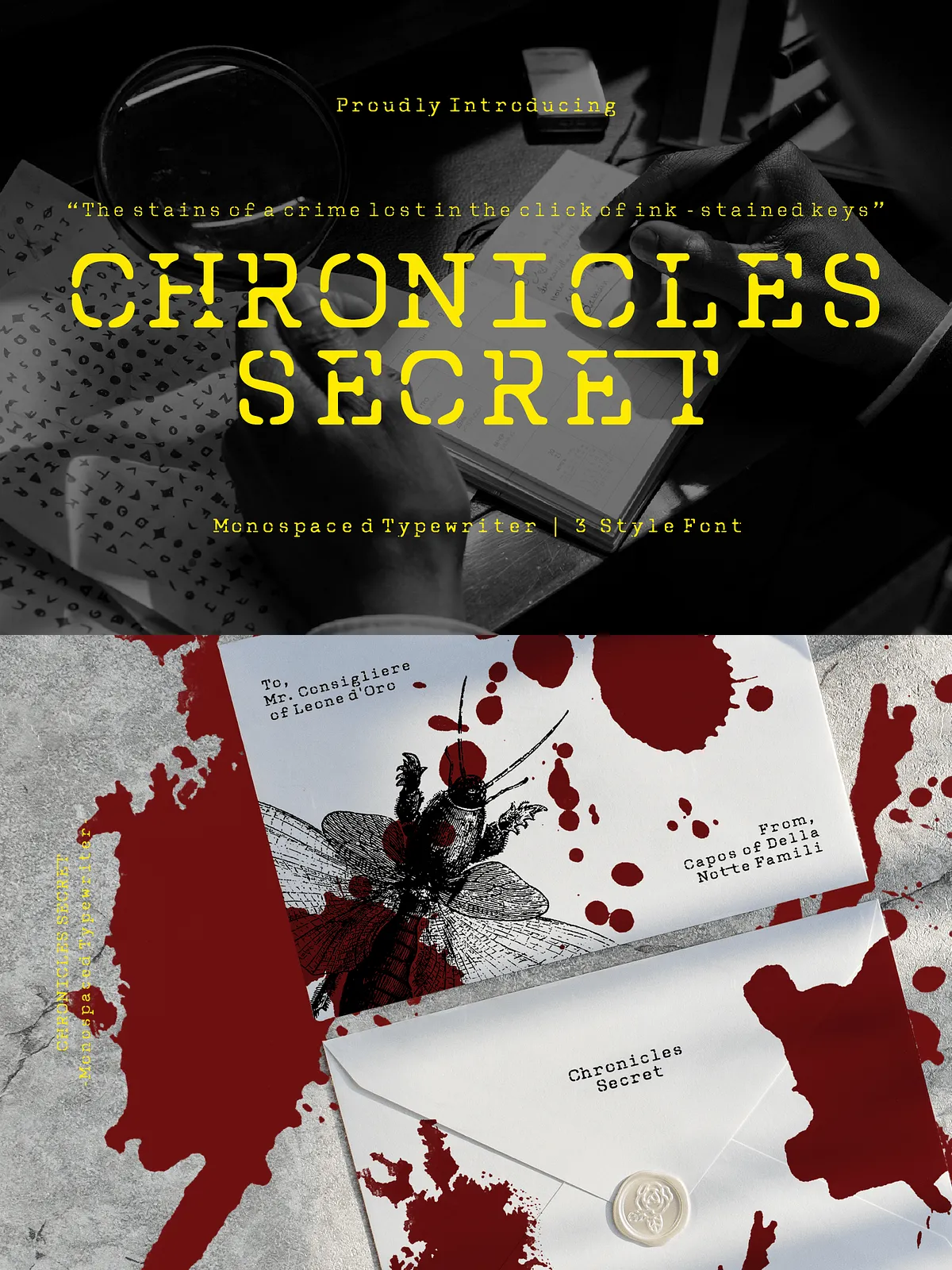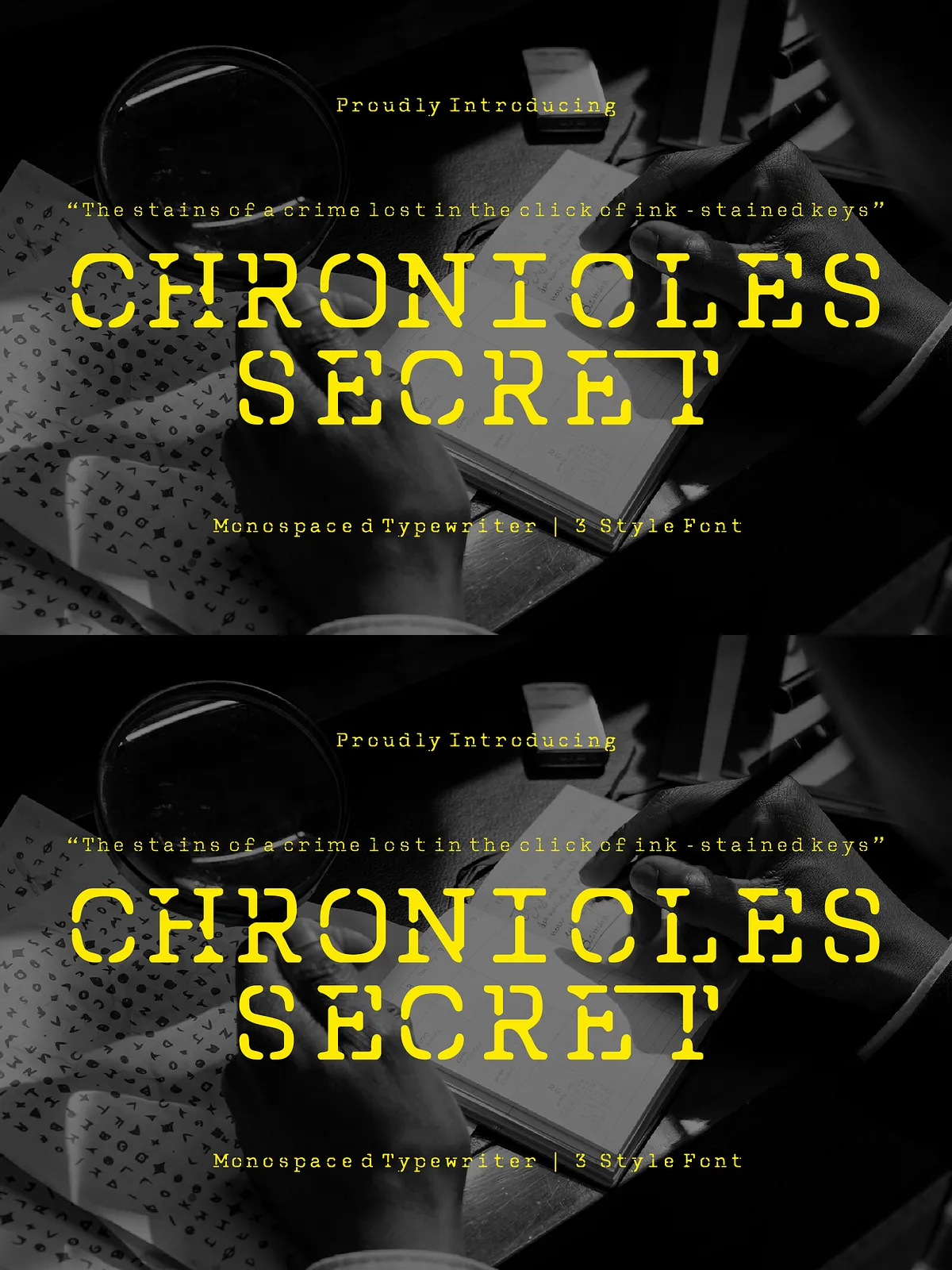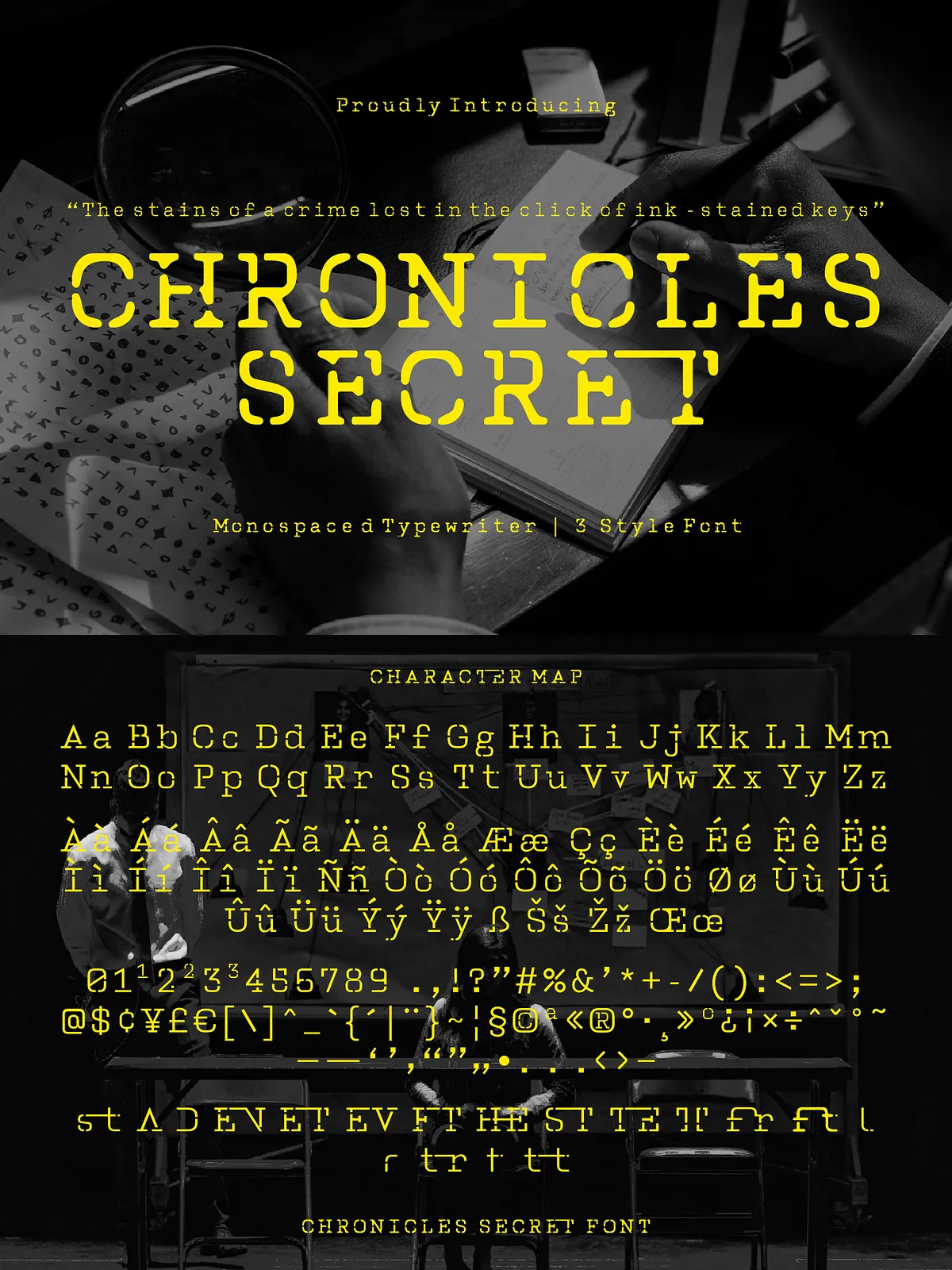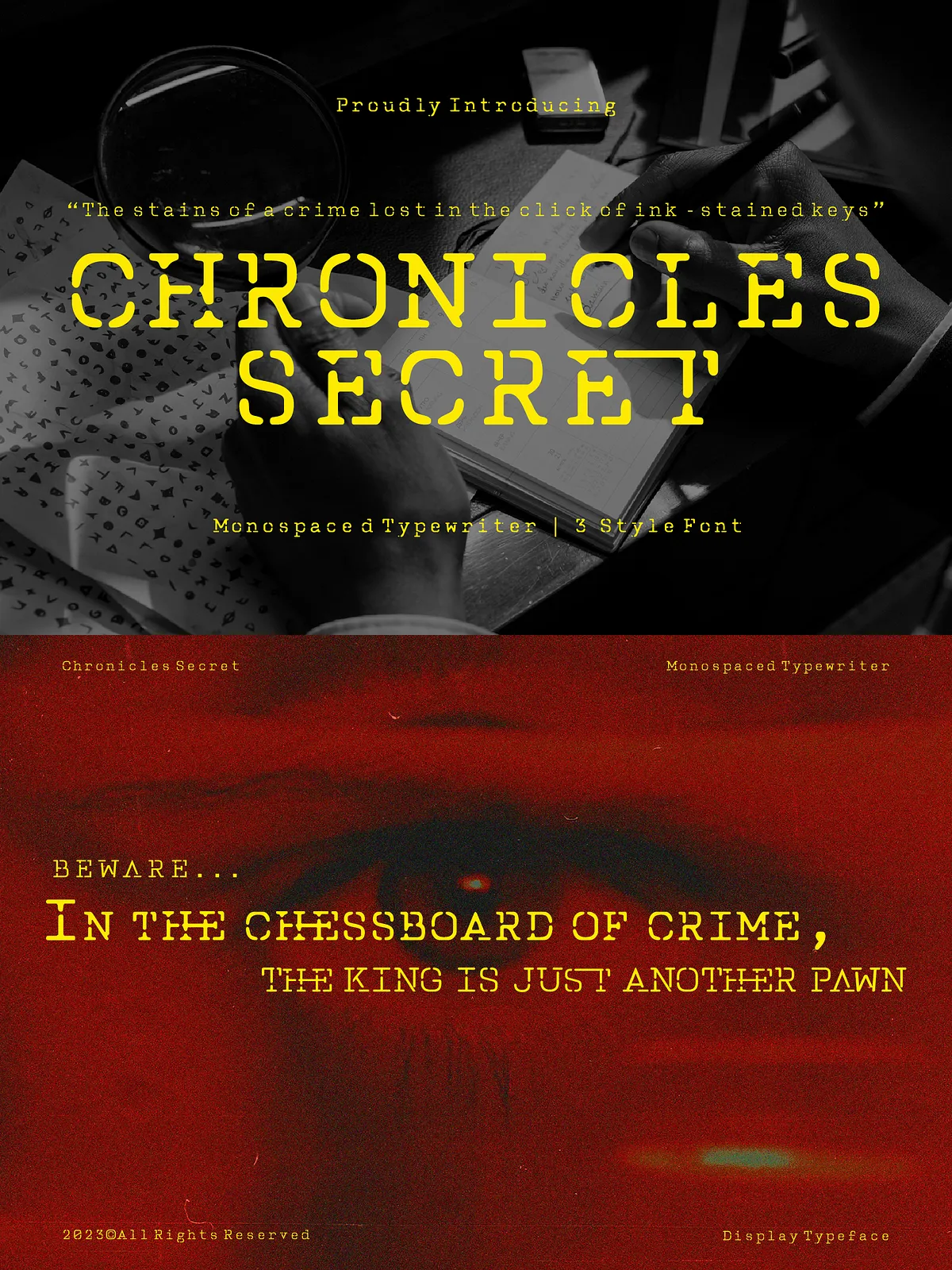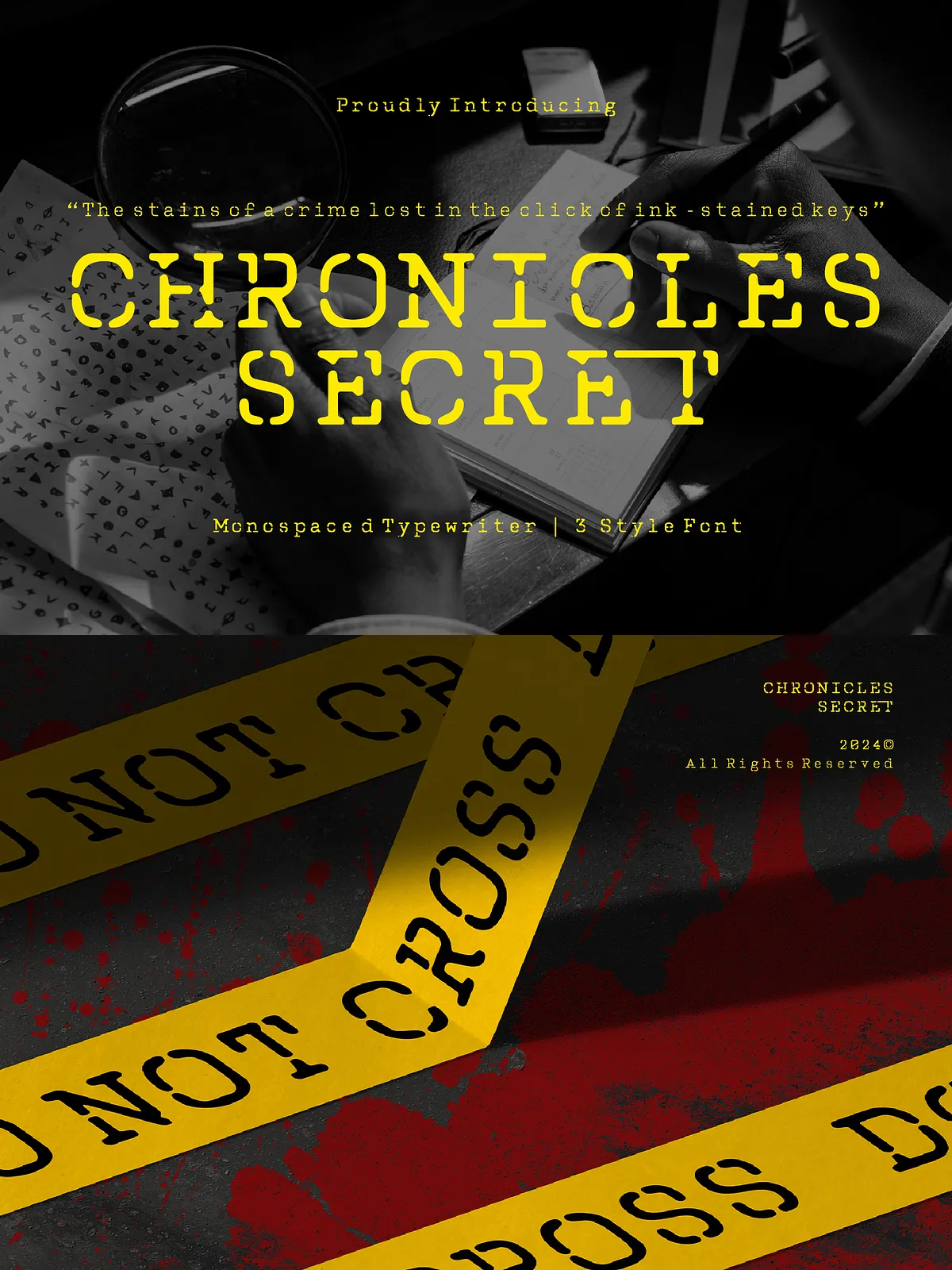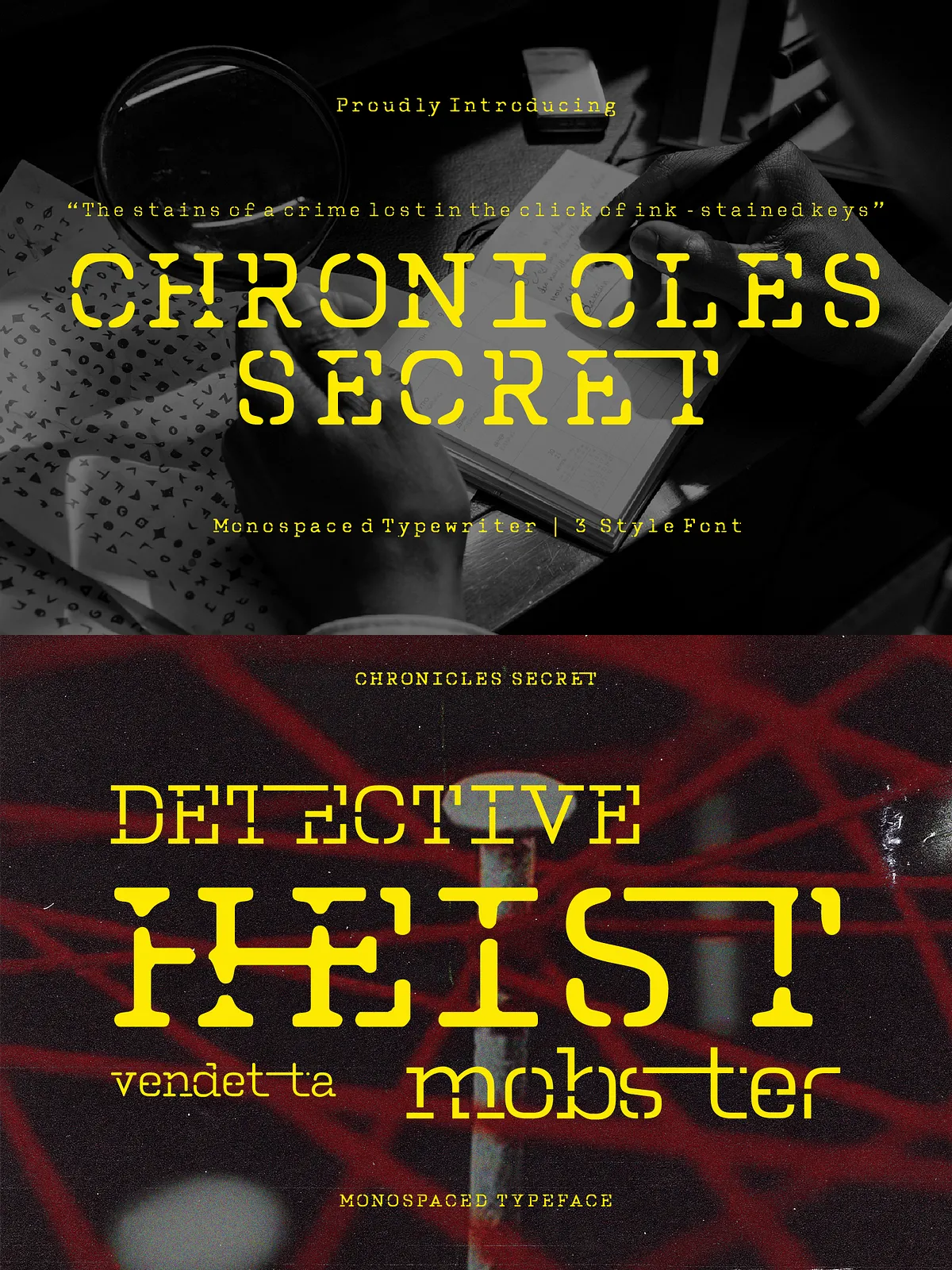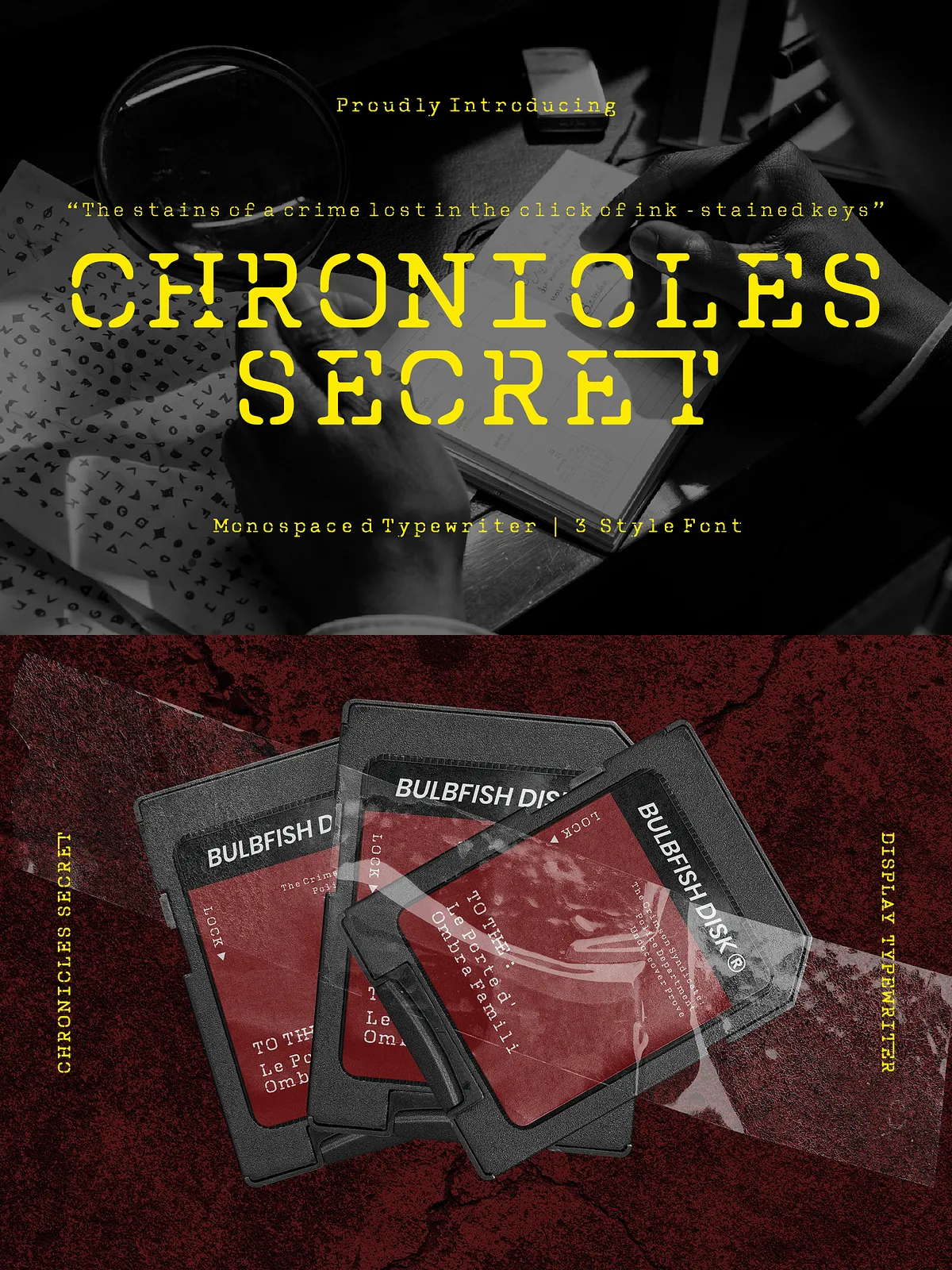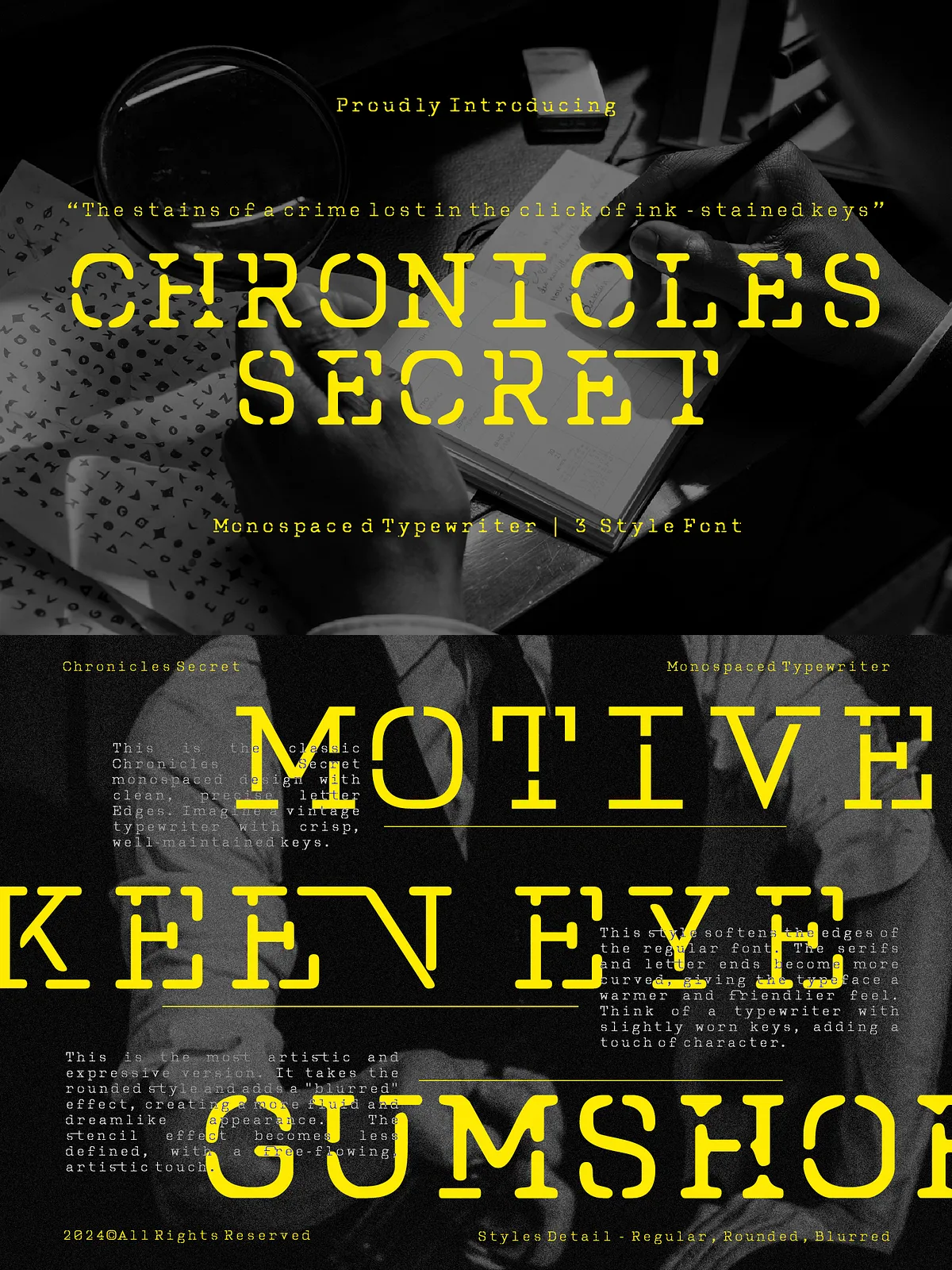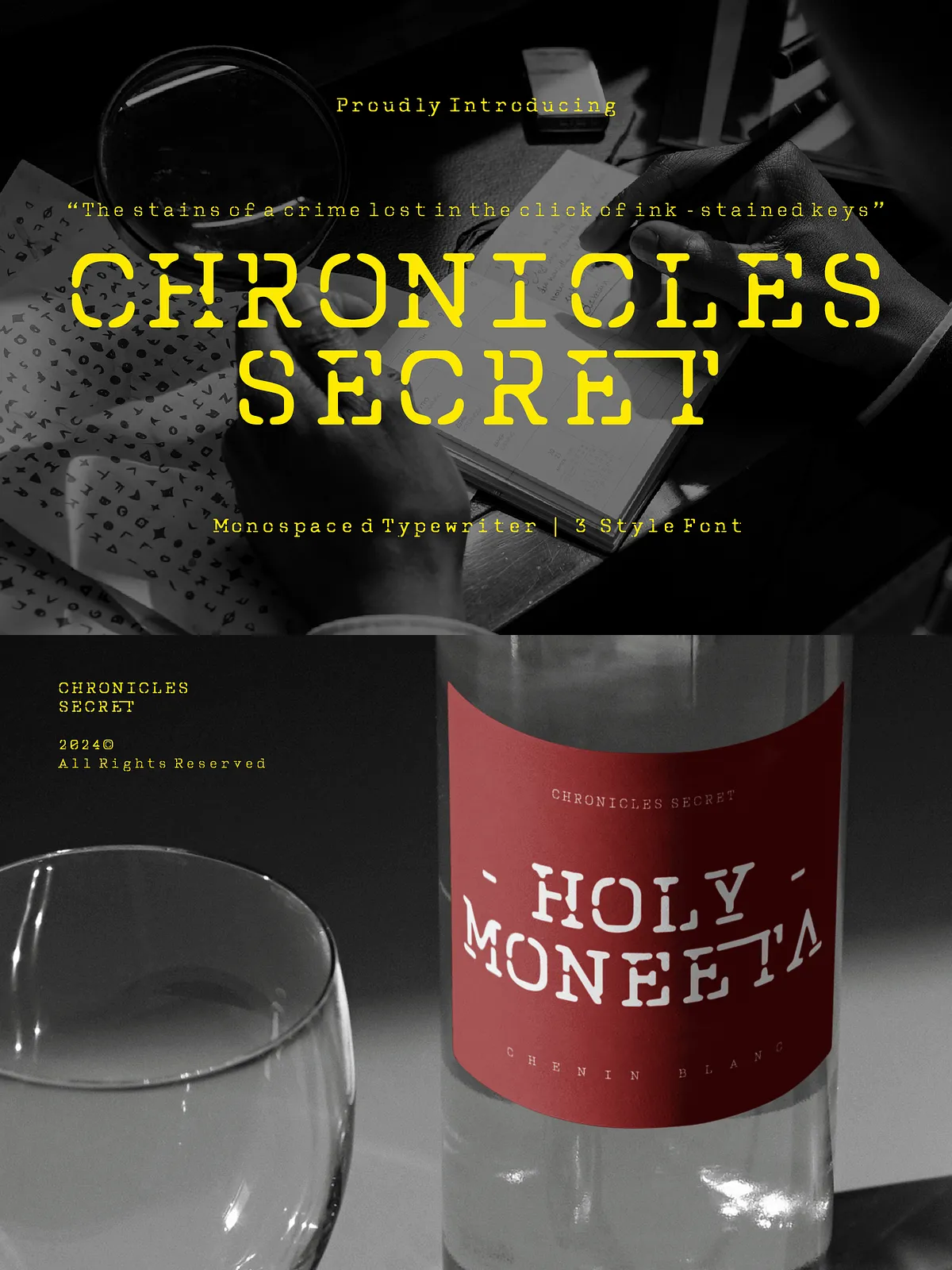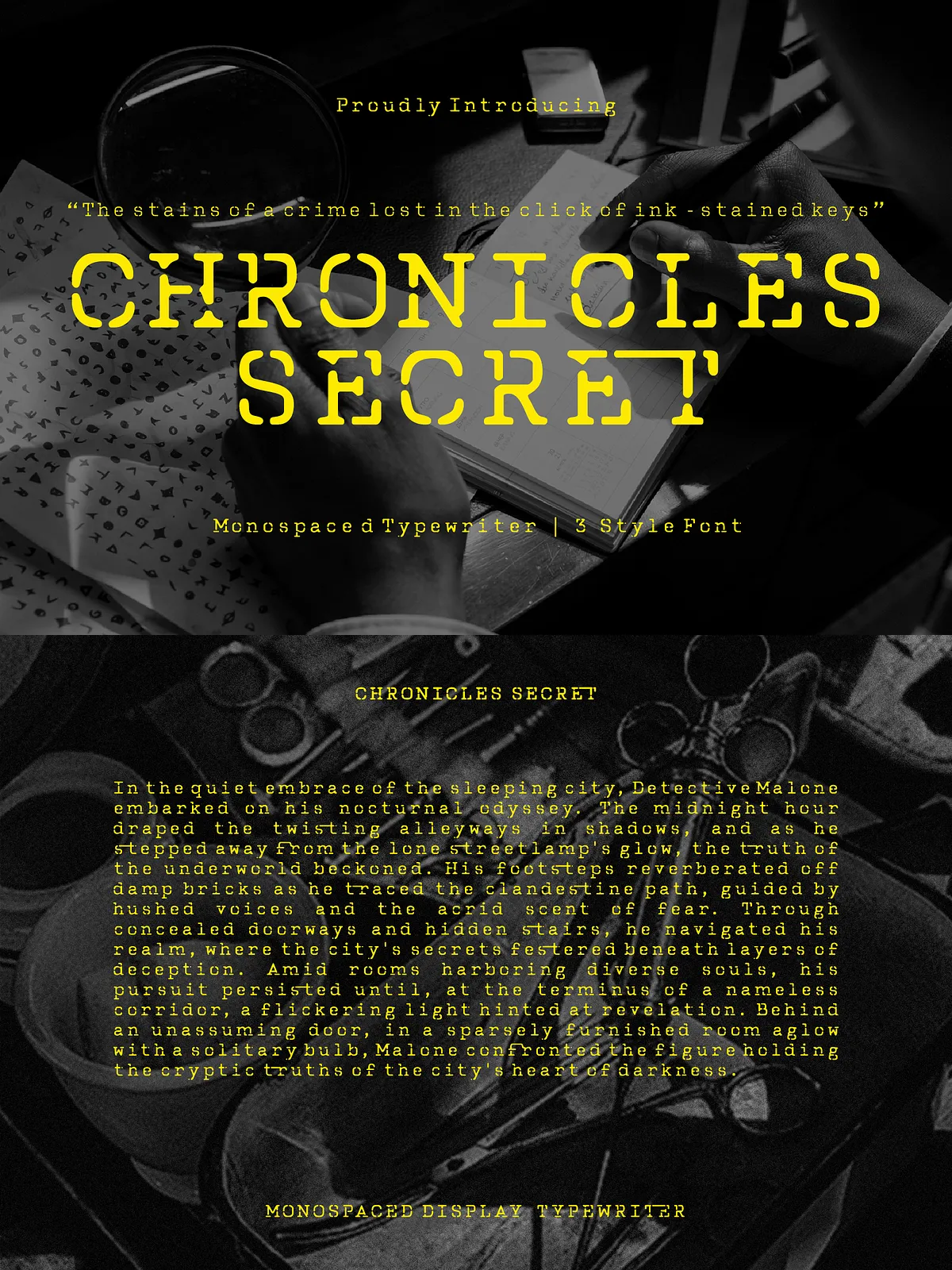
Chronicles Secret channels the mechanical rhythm and tactile personality of classic typewriters into a contemporary, highly usable font family. Crafted to convey suspense, nostalgia, and character, Chronicles Secret injects dramatic atmosphere into headlines, editorial spreads, packaging, and branding. Designers will appreciate its ability to set mood instantly: choose sharp angular strokes for urgency, soft rounded shapes for warmth, or blurred edges for a mysterious, dreamlike effect.
Three Distinct Styles for Every Story
Chronicles Secret offers three expressive styles that let you match tone to intent:
- Angular — Crisp, assertive letterforms that deliver direct, tonal impact.
- Rounded — Smooth, approachable curves that soften text and invite engagement.
- Blur — Subtle edge treatments that evoke motion, haze, and cinematic drama.
Designed for Authentic Typewriter Texture
This family does more than imitate typewriter forms — it reproduces their imperfections and mechanical charm. Each glyph includes carefully considered irregularities, spacing nuances, and weight shifts to mimic the tactile unpredictability of key strikes. These details create visual interest and an unmistakable vintage identity while remaining fully professional and production-ready.
Advanced Typographic Features
- OpenType Ligatures: Rich ligature sets simulate the overlapping and collision of adjacent typewriter characters, adding realism and flow to text.
- Multiple Alternates: Alternate glyphs for common letters reduce repetition and elevate crafted headlines and logotypes.
- Full Character Set: Uppercase and lowercase A–Z, numerals 0–9, punctuation, and essential symbols included.
- Multilingual Support: Extended Latin coverage for Western European languages, enabling confident global use.
- PUA Encoded Glyphs: Decorative and special glyphs encoded in the Private Use Area for easy access without extra software.
Ideal Applications
Chronicles Secret excels wherever mood, narrative, and tactile personality matter. Use it to:
- Create atmospheric book covers and editorial headlines for thrillers or historical fiction.
- Design evocative movie posters, event posters, and promotional graphics.
- Build brand identities for indie publishers, vintage shops, cafes, and artisan goods.
- Produce packaging and merchandise with handcrafted, nostalgic appeal.
Start Typing Your Story
Chronicles Secret transforms ordinary text into atmospheric storytelling. Install the family, choose the style that matches your voice, and let the characters deliver mood, texture, and narrative energy. This font family empowers designers to create work that reads like a secret waiting to be discovered.